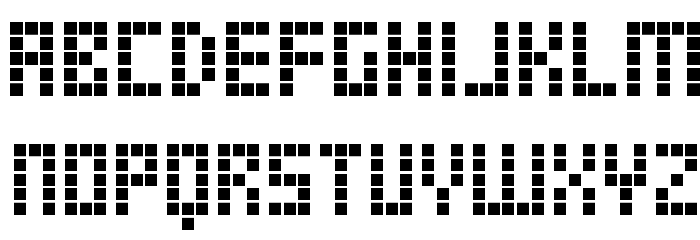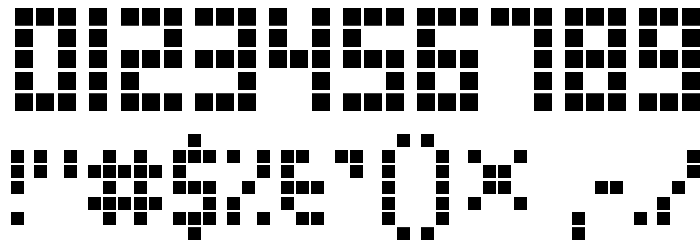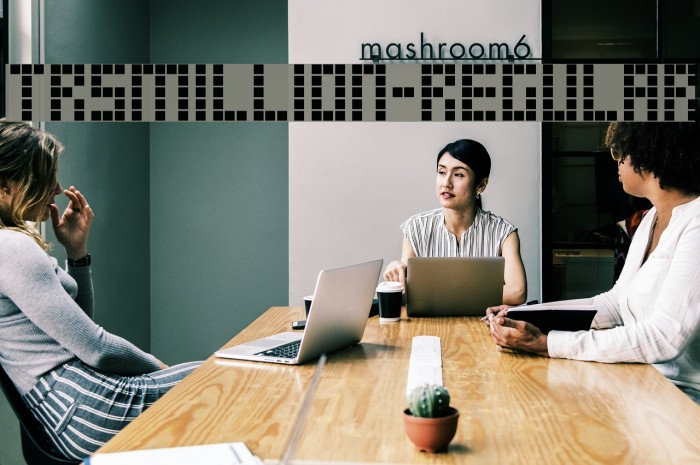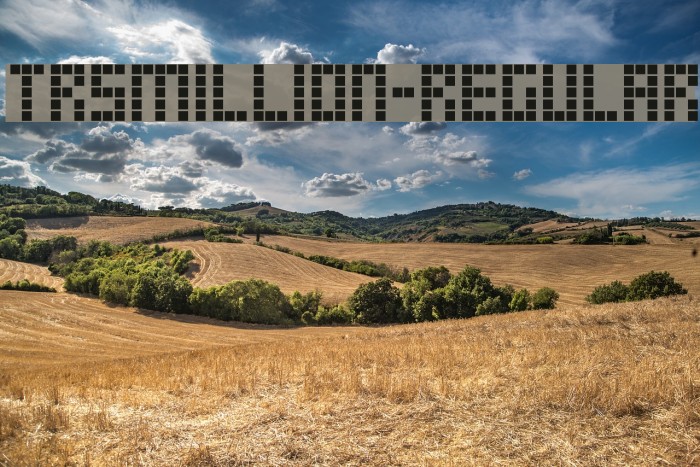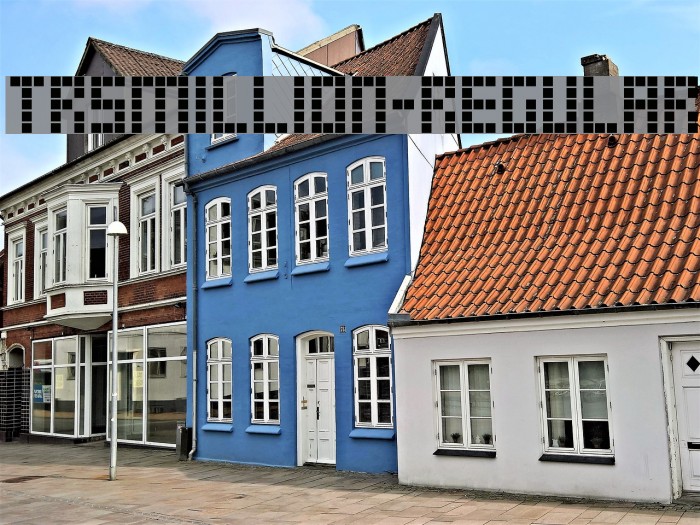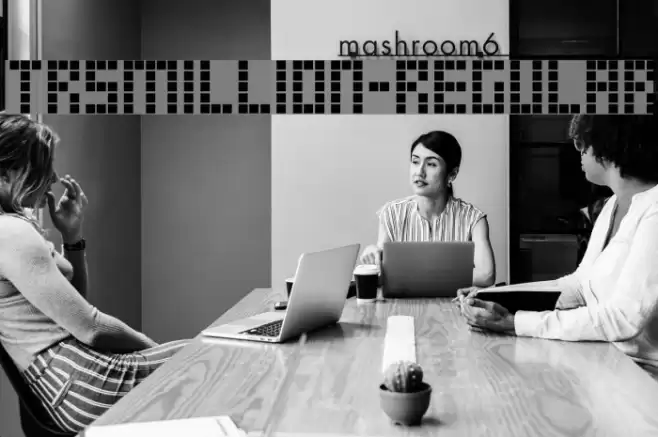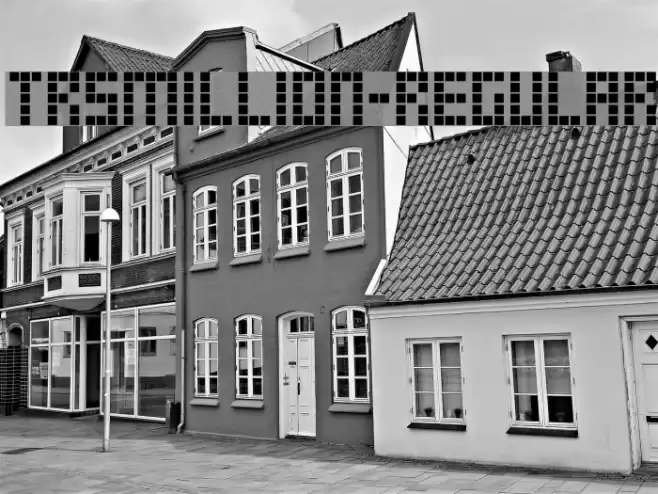
TRSMillion-Regular Font
This font features a distinct pixelated design, reminiscent of early digital displays and retro video games. Each character is constructed from a grid of squares, giving it a blocky, geometric appearance. The uniformity in the square shapes across all characters provides a cohesive and structured look. Despite its rigid form, the font maintains legibility and a unique aesthetic that stands out in digital and print media. Its nostalgic feel is perfect for projects that aim to evoke a sense of classic computing or gaming culture.
A pixelated, geometric font inspired by retro digital displays.
- Proposed Projects: Ideal for video game graphics, retro-themed posters, digital art, and tech-related branding.
- Overall Style: Retro, Digital
- Use Case: Headlines, Logos, Digital Art